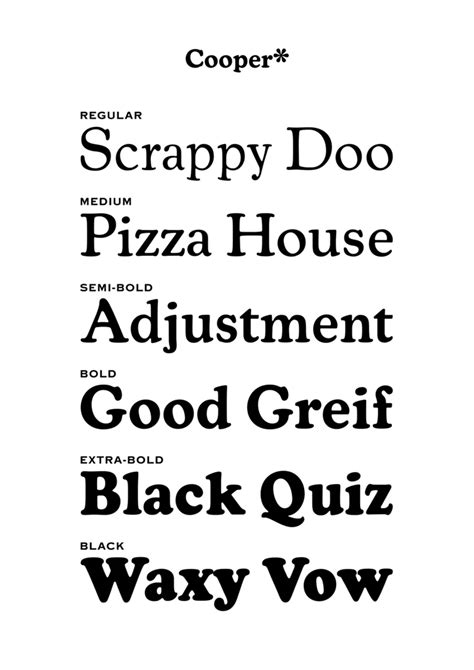
Cooper Font Free. Free for commercial use, ofl. Web learn about cooper, a rounded serif typeface designed by oswald bruce cooper, and its history, specimen, and purchase options.
Antiqua basic elegant family italic old. Free for commercial use, ofl. Web learn about cooper, a rounded serif typeface designed by oswald bruce cooper, and its history, specimen, and purchase options. Cooper black is a very heavy version of cooper oldstyle (also known simply as cooper), an innovative typeface. July 10, 2023 featured in serif.
Free for commercial use, ofl. Cooper black is a very heavy version of cooper oldstyle (also known simply as cooper), an innovative typeface. Web learn about cooper, a rounded serif typeface designed by oswald bruce cooper, and its history, specimen, and purchase options. July 10, 2023 featured in serif. Antiqua basic elegant family italic old.